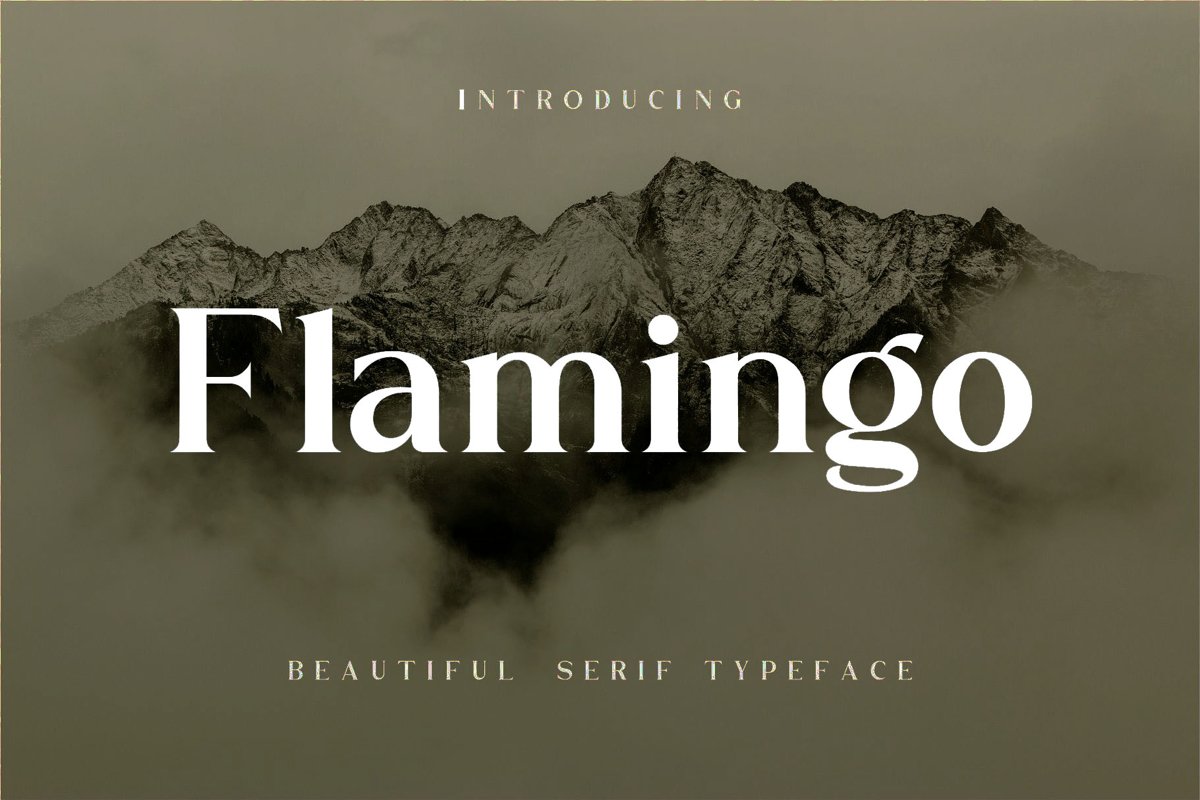
Flamingo
Flamingo. chic font takes the decoration out of deco but keeps those vintage curves. A perfect mix of new and old. This versatile font can be used for word-mark logos, mastheads, pull quotes & monograms.